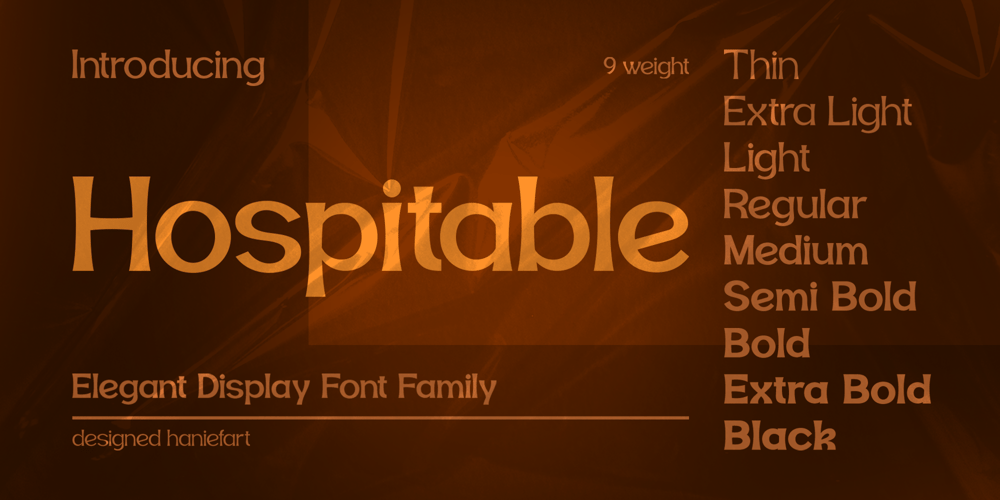
Hospitable Font Family was designed by Hanif Maulazi and published by Haniefart. Hospitable contains 9 styles and family package options. Hospitable is a sophisticated sans serif display font family. Carved with sharp angles, this typeface has a sleek and elegant character. Hospitable consists of uppercase, lowercase, numbers, punctuation, standard ligatures, and also some multilingual support. This versatile family has 9 weights ranging from thin to black. Its distinctive clarity and unique look make Hospitable a great choice for a variety of designs such as book covers, magazines, brand packaging, brand visuals, posters, banners, business cards, labels, and apparel designs, and many more.